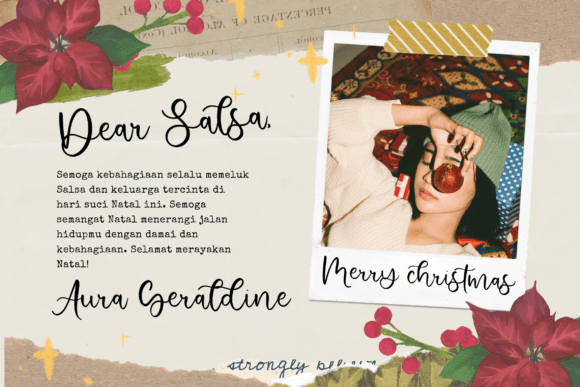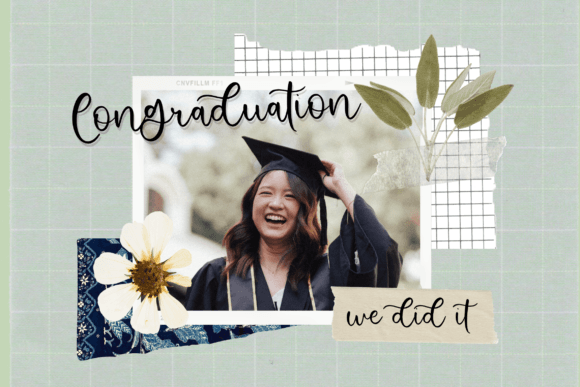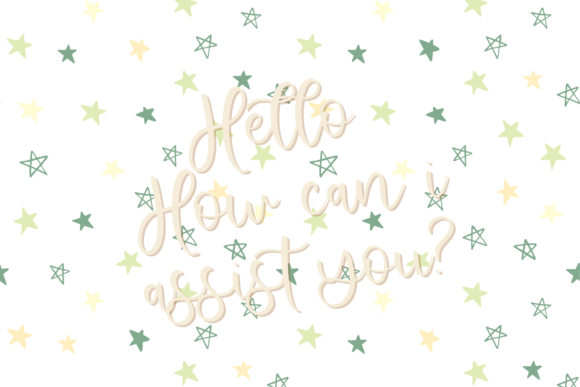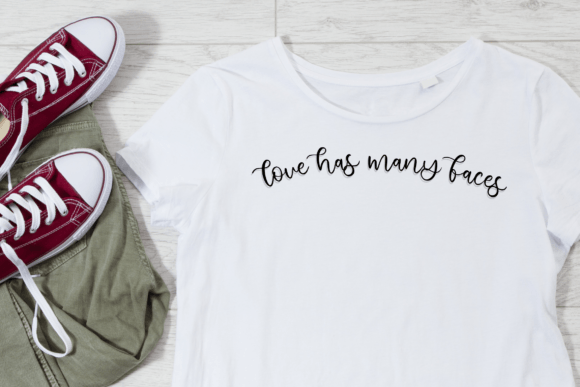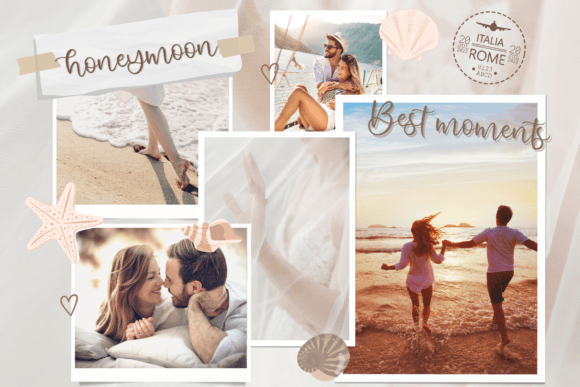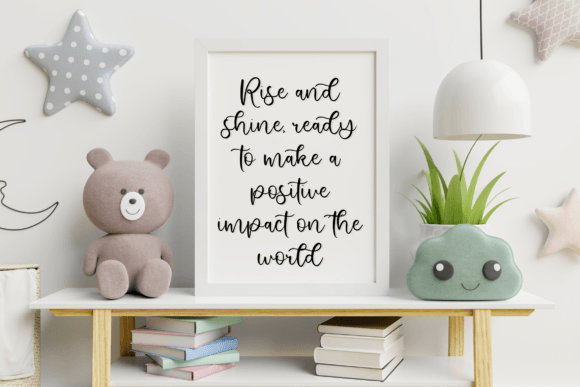
Introducing Girlguest Font: The Perfect Handwritten Font for Chalkboard Quotes and Teaching Materials
Are you a designer, teacher, or crafter looking for a font that can add a personal touch to your chalkboard quotes, teaching materials, or craft projects? Look no further than Girlguest Font! This beautiful handwritten font is designed to mimic the authentic look of chalkboard writing, making it perfect for a variety of creative projects.
What is Girlguest Font?
Girlguest Font is a carefully crafted handwritten font that is designed to replicate the look of authentic chalkboard writing. With its unique and charming style, this font is perfect for adding a personal touch to your designs, teaching materials, and craft projects. Whether you’re creating chalkboard quotes, teaching materials, or simply want to add a personal touch to your crafts, Girlguest Font is the perfect choice.
Features of Girlguest Font
- Authentic Look: Girlguest Font has an authentic look that mimics the writing on a chalkboard, making it perfect for chalkboard quotes and teaching materials.
- Handwritten Style: This font has a beautiful handwritten style that adds a personal touch to your designs.
- Versatile: Girlguest Font can be used for a variety of creative projects, including chalkboard quotes, teaching materials, craft projects, and more.
Uses of Girlguest Font
Girlguest Font is a versatile font that can be used for a variety of creative projects, including:
- Chalkboard Quotes: Use Girlguest Font to create beautiful chalkboard quotes that are perfect for decorating your home, classroom, or office.
- Teaching Materials: This font is perfect for teachers who want to add a personal touch to their teaching materials, such as worksheets, handouts, and presentations.
- Craft Projects: Girlguest Font can be used for a variety of craft projects, including scrapbooking, card making, and DIY signs.
- Social Media Graphics: Use this font to create eye-catching social media graphics that are perfect for sharing on Instagram, Facebook, and other social media platforms.
Why Choose Girlguest Font?
There are many reasons why you should choose Girlguest Font for your creative projects. Here are just a few:
- Unique Style: Girlguest Font has a unique and charming style that will set your designs apart from the rest.
- Authentic Look: This font has an authentic look that mimics the writing on a chalkboard, making it perfect for chalkboard quotes and teaching materials.
Girlguest Font is a beautiful handwritten font that is perfect for chalkboard quotes, teaching materials, and craft projects. With its authentic look and versatile style, this font is a great addition to any designer’s or crafter’s toolkit. Whether you’re a teacher, designer, or crafter, Girlguest Font is a great choice for adding a personal touch to your creative projects.